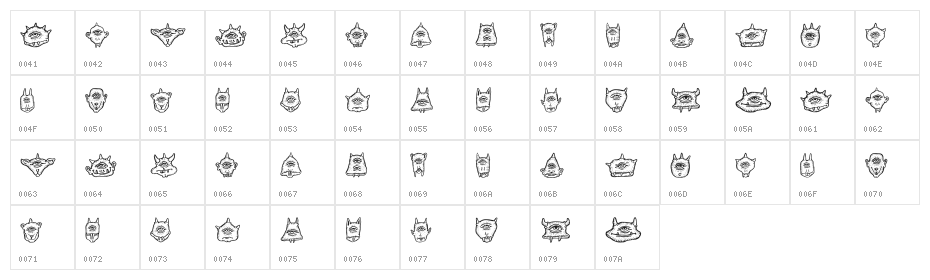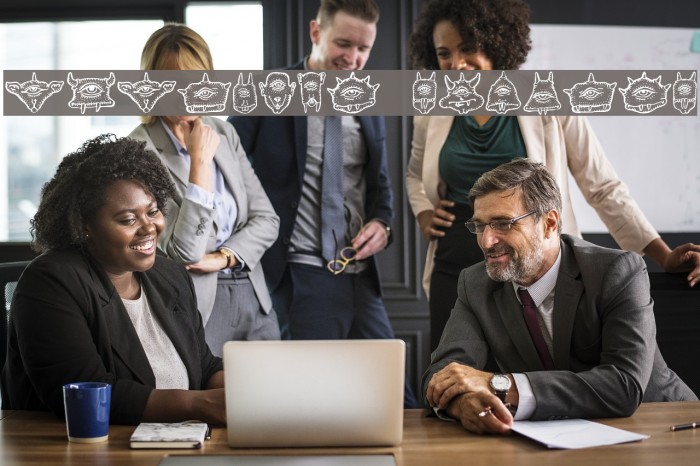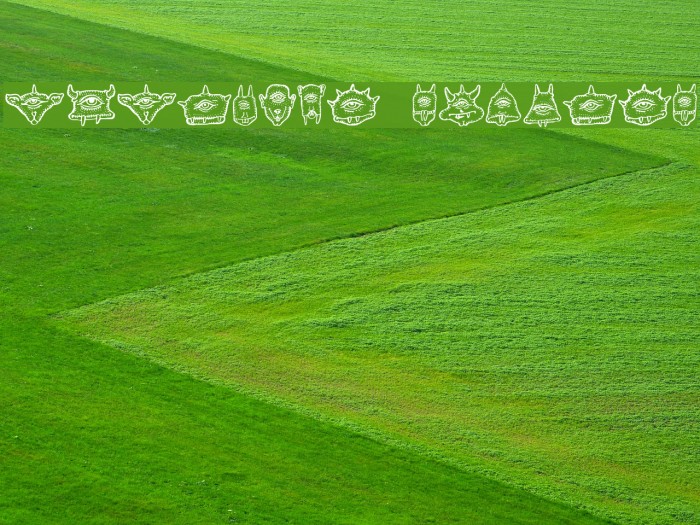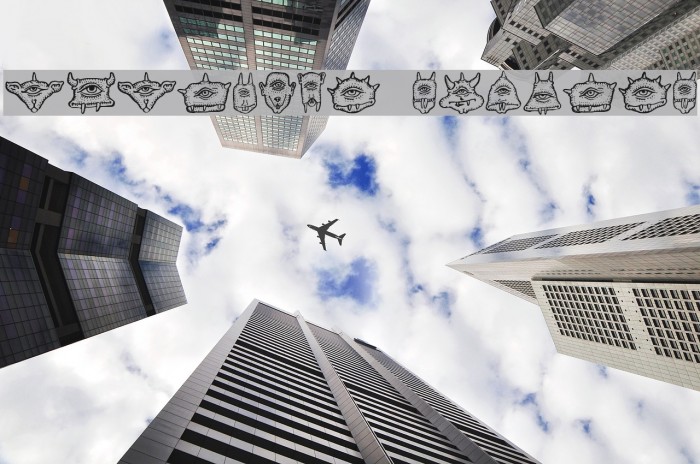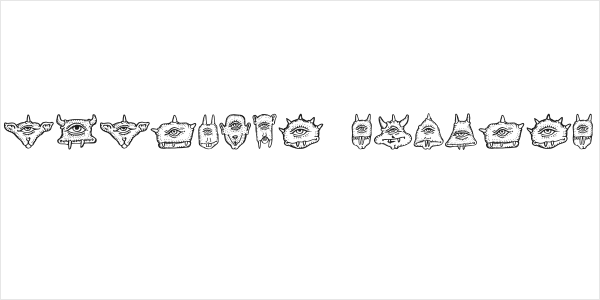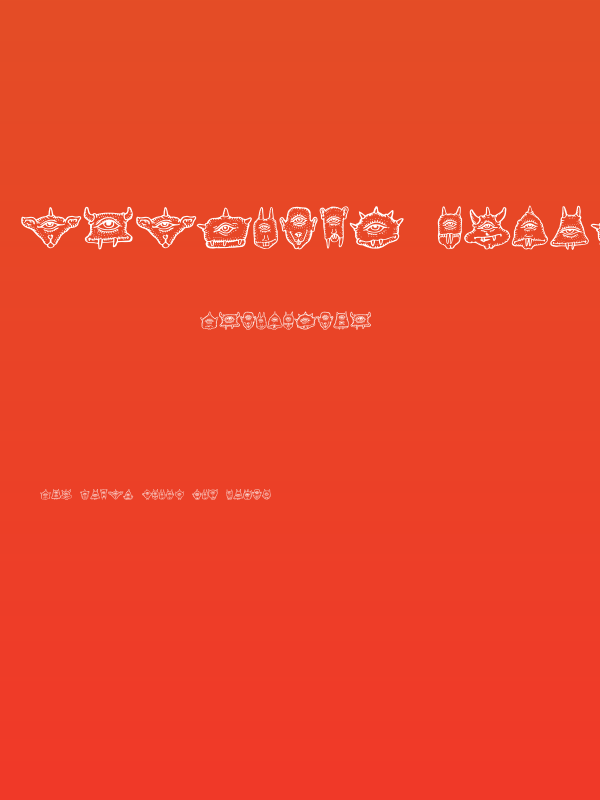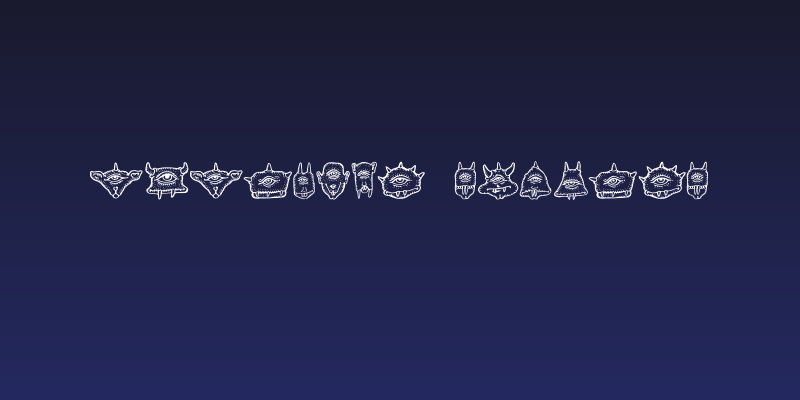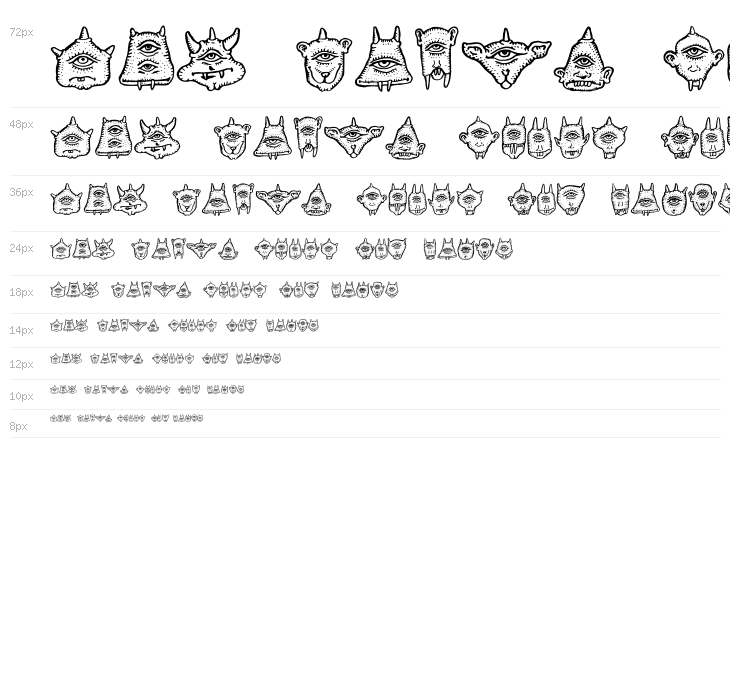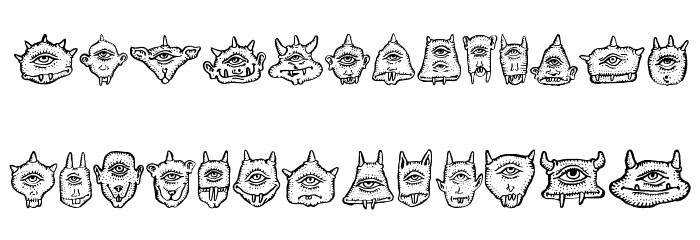
Cyclopia Regular Font
Cyclopia Regular Description
This unique and whimsical font features a series of hand-drawn, monster-like characters, each with a distinct personality. The characters are highly detailed, with various facial expressions and features, such as horns, eyes, and teeth, giving the font a playful and imaginative feel. The line work is intricate, with a sketch-like quality that adds to its charm. This font is perfect for projects that require a touch of fantasy or a quirky, artistic vibe. It's not a traditional alphabet but rather a collection of character illustrations that can be used creatively in design work.
| Use Case | Logos, Posters, Artistic Designs |
| Proposed Projects | Ideal for children's book illustrations, fantasy-themed designs, creative posters, and artistic branding. |